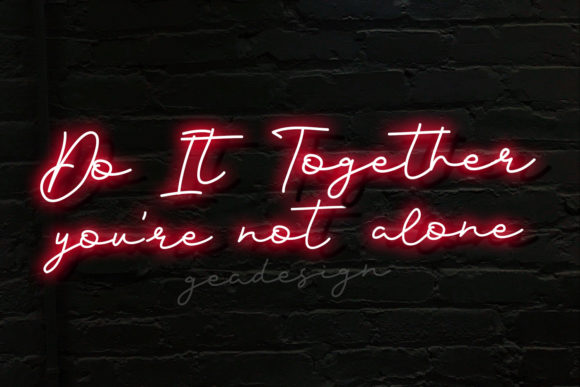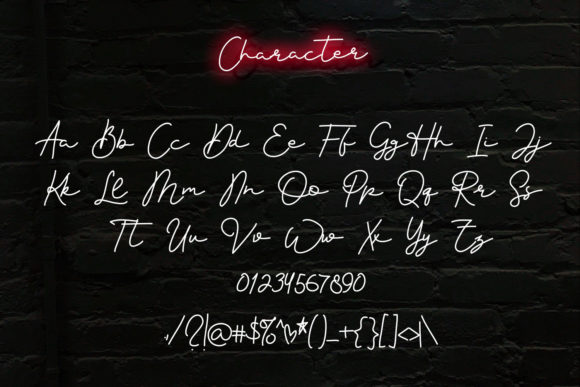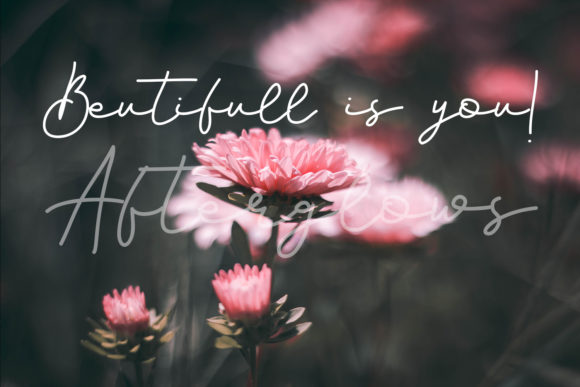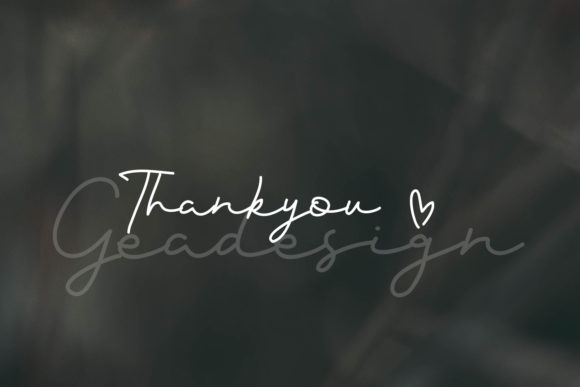
Unleash Your Creativity with the Dreamy Afterglows Font
Do you remember the feeling of getting lost in a sea of colors and textures, surrounded by half-finished crafts and scattered inspiration boards? It’s that magical moment when creativity strikes, and your imagination runs wild. For many designers and crafty enthusiasts, this feeling is a constant companion, driving them to create something new and unique every day.
Enter the Afterglows Font, a signature font that captures the essence of this creative spirit. With its casual, dreamy feel, it adds a touch of whimsy to any project, from digital designs to handmade crafts. Whether you’re a seasoned pro or a beginner, this font is a valuable addition to your toolkit, offering endless possibilities for expression and creativity.
Afterglows Font Key Features
- Unique Characteristics: Afterglows Font features a unique blend of modern and vintage elements, with intricate details and subtle texture, making it perfect for creating eye-catching designs.
Afterglows Font Review
After using Afterglows Font for a while, I have to say it’s a mixed bag. Here are my thoughts.
- Unique style: Afterglows Font has a distinct, dreamy quality that sets it apart from other fonts. It’s perfect for those looking for something unconventional.
- High legibility: Despite its whimsical design, Afterglows Font is surprisingly easy to read, even at smaller font sizes.
- Great for creative projects: The font’s playful, hand-drawn feel makes it an excellent choice for artistic projects, such as book covers, posters, or social media graphics.
- Limited versatility: While Afterglows Font shines in creative projects, it may not be the best choice for formal or corporate materials.
- May not work well in smaller sizes: While I mentioned it’s legible, Afterglows Font can start to look fuzzy or distorted when scaled down too much.
- Not ideal for body text: Due to its cursive nature, Afterglows Font may not be the best choice for large blocks of text, as it can be tiresome to read.
Overall, Afterglows Font is a solid choice for those looking for a unique, creative font. However, it may not be the best fit for everyone. Use it wisely, and you’ll be rewarded with a beautiful, eye-catching design.
Getting the Most Out of Afterglows Font
To get the most out of Afterglows Font, use it for:
– Titles and headings to add a touch of elegance.
– Quotes and testimonials to add a sense of sophistication.
– Branding and logos to create a unique visual identity.
Afterglows Font is commonly used for:
– Wedding invitations and stationery.
– Luxury brand logos and packaging.
– High-end marketing materials and advertising.